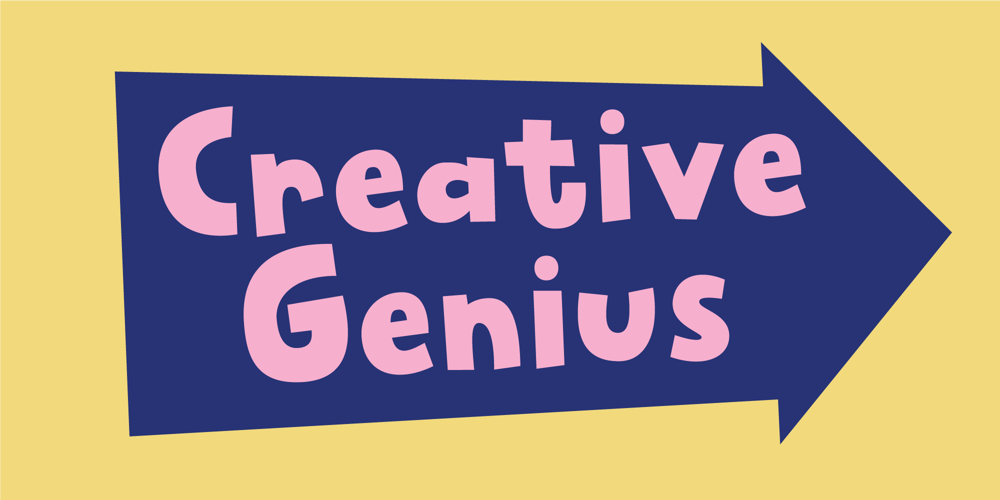
Creative Genius Font Family was designed by Jakob Fischer and published by PizzaDude.dk. Creative Genius contains 2 styles and family package options. I don’t consider myself a creative genius, just creative! Maybe even a creative nerd…ha ha – but the name to this font came from a massive amount of spam mails, all of them containing the subject “Creative Genius” :)The font is creative, yes, but genius? I don’t know, but I will let you be the judge!Creative Genius is my take on a classic and legible comic font – as usually slightly inspired by grafitti. Harming no-one, but maybe inspiring others to make some cool stickers, posters or packaging with this font!